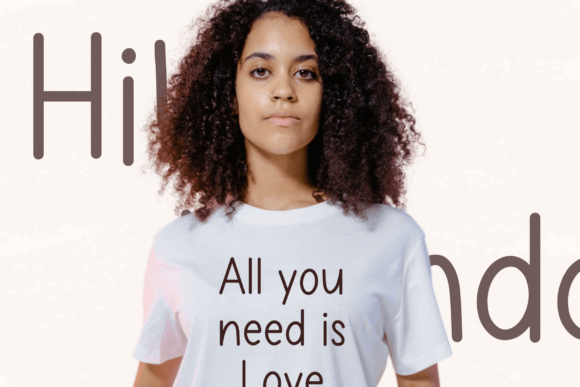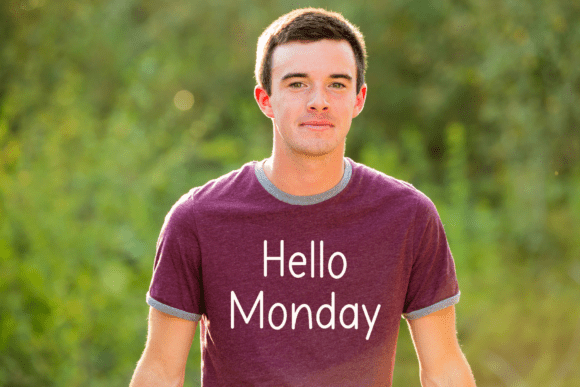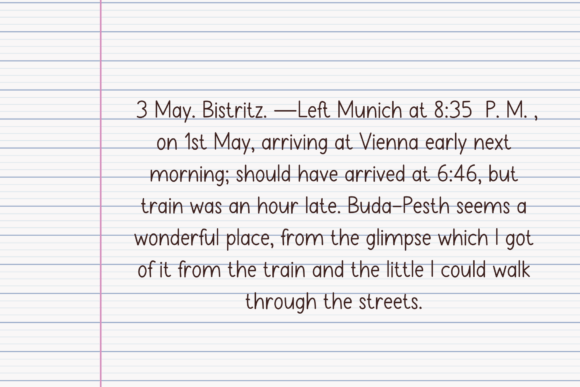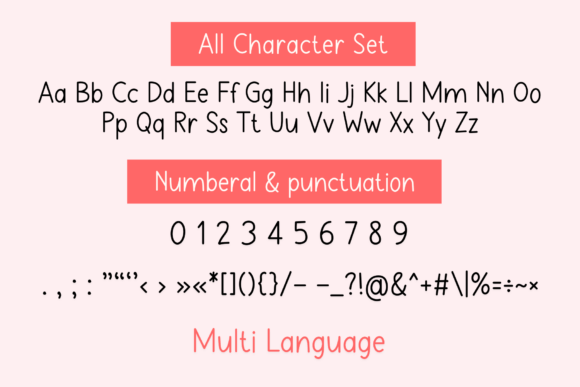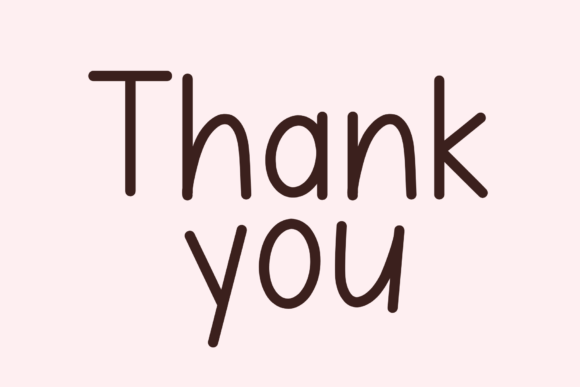
Introducing Blush Notes Font: The Perfect Handwritten Touch for Your Designs
Are you tired of using the same old fonts in your designs? Do you want to add a touch of playfulness and authenticity to your projects? Look no further than Blush Notes Font! This beautiful handwritten font is perfect for designers and crafters who want to add a personal touch to their work. In this article, we’ll explore the features and benefits of Blush Notes Font, and show you how to make the most of this amazing font in your designs.
What is Blush Notes Font?
Blush Notes Font is a handwritten font that embodies playfulness and authenticity. It’s a unique and charming font that’s perfect for a wide range of projects, from blog posts and logos to branding, ads, invitations, greeting cards, planners, photo albums, decorations, and much more. With its whimsical and artistic feel, Blush Notes Font is sure to add a touch of personality to any design.
Features of Blush Notes Font
So, what makes Blush Notes Font so special? Here are just a few of its key features:
- Handwritten style: Blush Notes Font is a genuine handwritten font, with a natural and fluid feel that’s perfect for adding a personal touch to your designs.
- Playful and authentic: This font embodies playfulness and authenticity, making it perfect for designers and crafters who want to add a touch of whimsy to their work.
- Versatile: Blush Notes Font is perfect for a wide range of projects, from digital designs to print materials.
Benefits of Using Blush Notes Font
So, why should you choose Blush Notes Font for your designs? Here are just a few of the benefits of using this amazing font:
- Adds a personal touch: Blush Notes Font adds a personal touch to your designs, making them stand out from the crowd.
- Increases creativity: This font inspires creativity and imagination, making it perfect for designers and crafters who want to push the boundaries of their work.
- Perfect for branding: Blush Notes Font is perfect for branding and advertising, as it adds a touch of personality and whimsy to your marketing materials.
- Great for DIY projects: This font is perfect for DIY projects, such as crafting, scrapbooking, and journaling.
How to Use Blush Notes Font in Your Designs
Using Blush Notes Font in your designs is easy! Here are a few tips to get you started:
- Pair it with other fonts: Blush Notes Font pairs perfectly with other fonts, such as sans-serif fonts and script fonts.
- Use it for headings and titles: This font is perfect for headings and titles, as it adds a touch of personality and whimsy to your text.
- Add it to your branding materials: Use Blush Notes Font in your branding materials, such as logos, business cards, and brochures.
- Experiment with colors and textures: Experiment with different colors and textures to add depth and interest to your designs.
In conclusion, Blush Notes Font is a beautiful handwritten font that’s perfect for designers and crafters who want to add a touch of playfulness and authenticity to their work. With its unique and charming style, this font is sure to inspire creativity and imagination. Whether you’re working on a digital design or a print project, Blush Notes Font is the perfect choice. So why wait? Download Blush Notes Font today and start adding a personal touch to your designs!